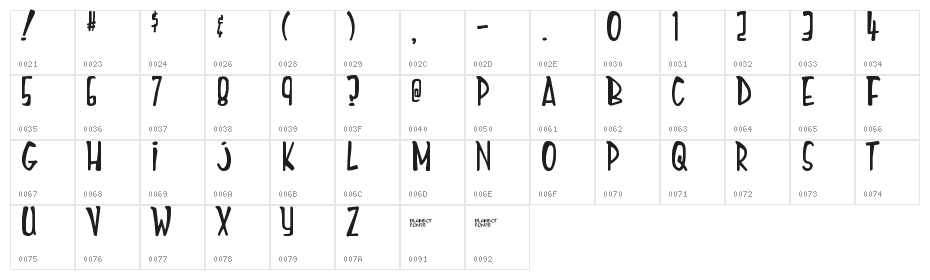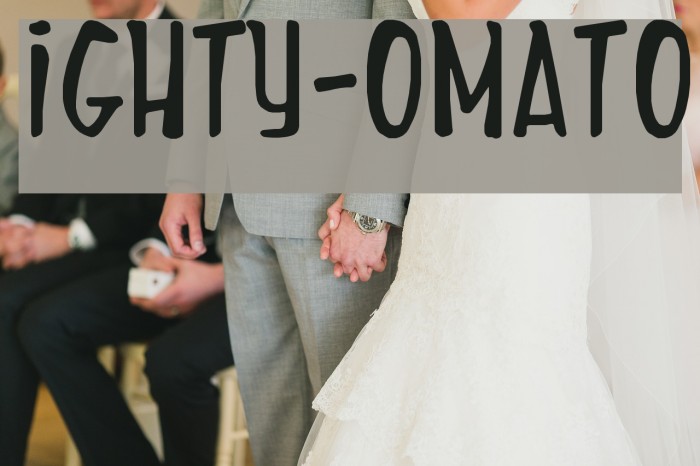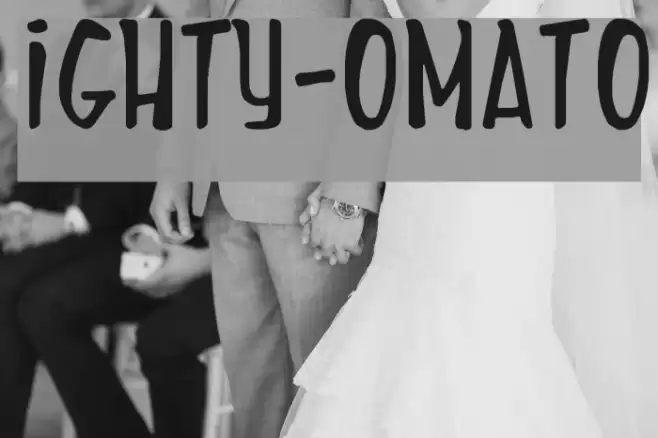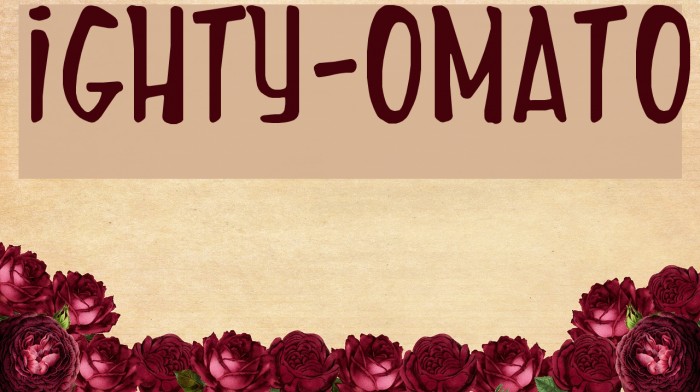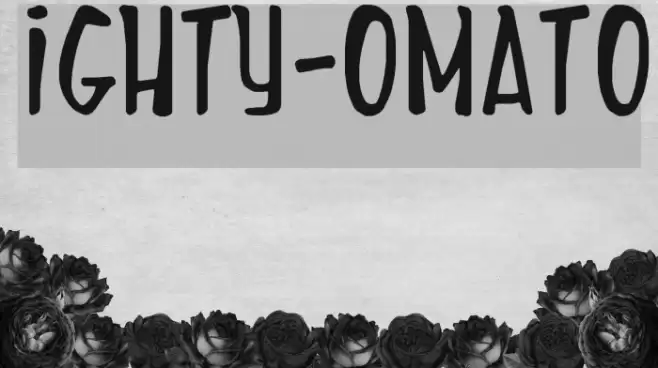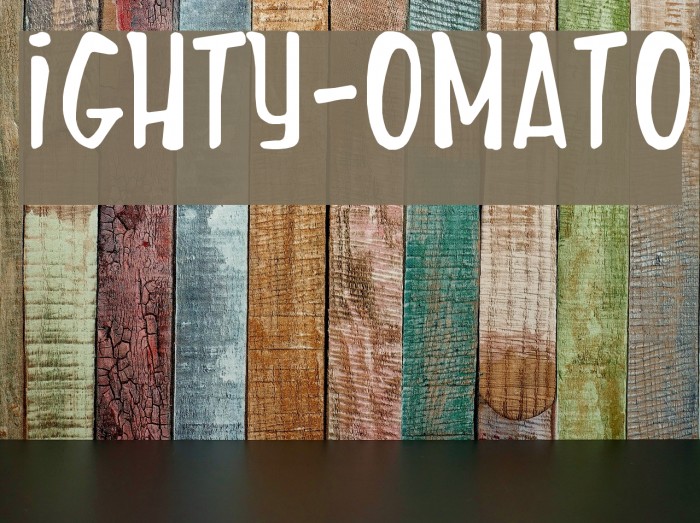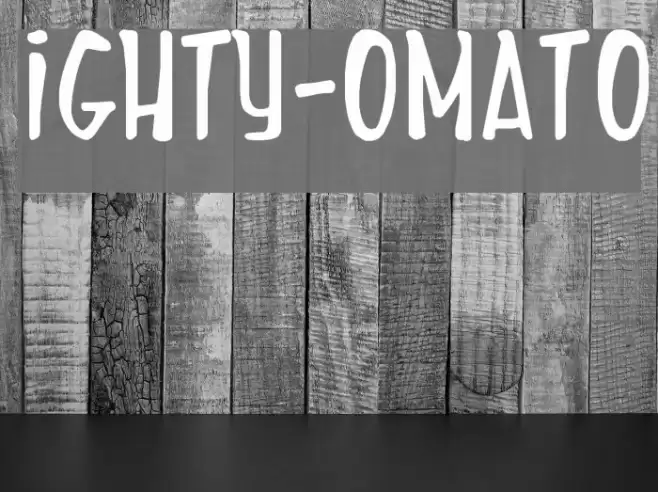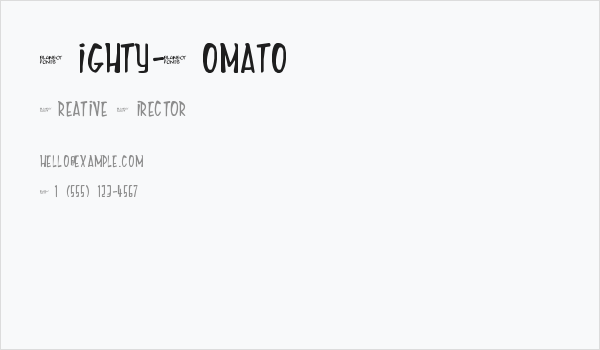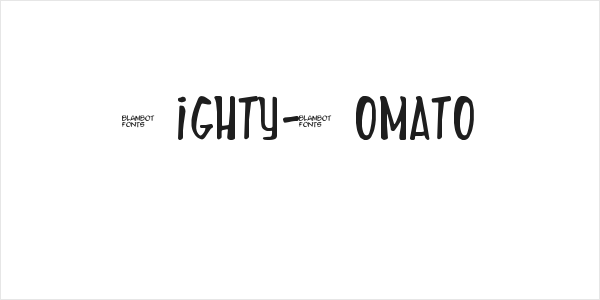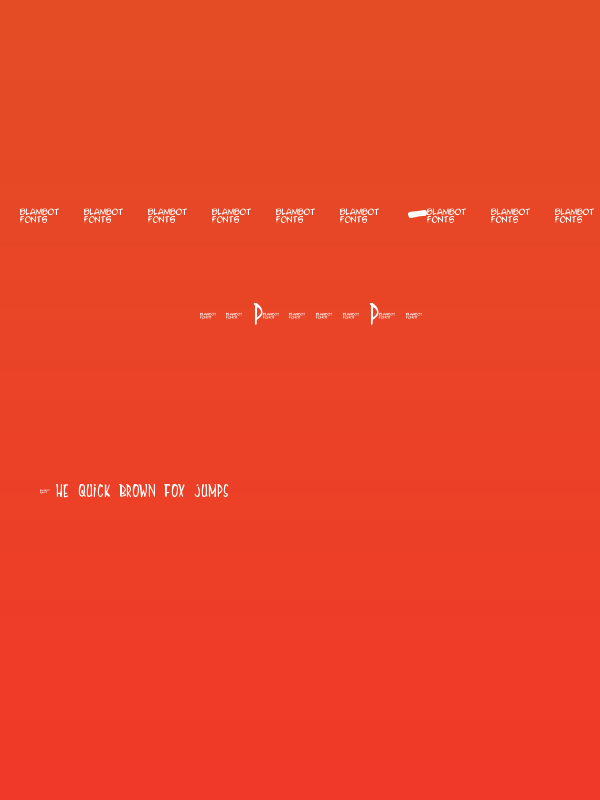
Mighty-Tomato Font
Mighty-Tomato Description
This font features a playful and bold design with exaggerated curves and a slightly irregular baseline, giving it a whimsical and dynamic appearance. The characters are tall and narrow, with a hand-drawn quality that adds a personal touch. The uppercase letters are particularly striking, with unique flourishes and a sense of movement. The numerals and special characters maintain the same lively style, making the font versatile for various creative applications. Its distinct personality makes it suitable for projects that require a fun and engaging visual element.
| Proposed Projects | Ideal for comic books, children's books, playful branding, and posters. |